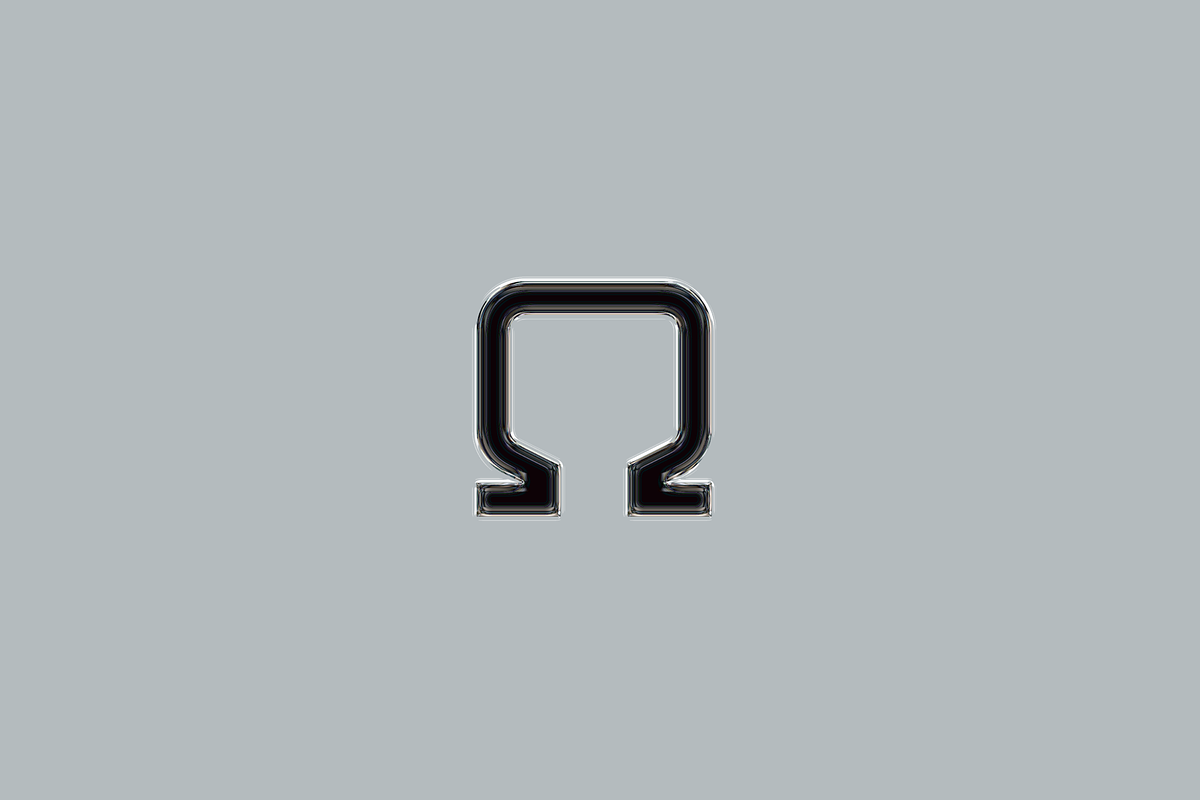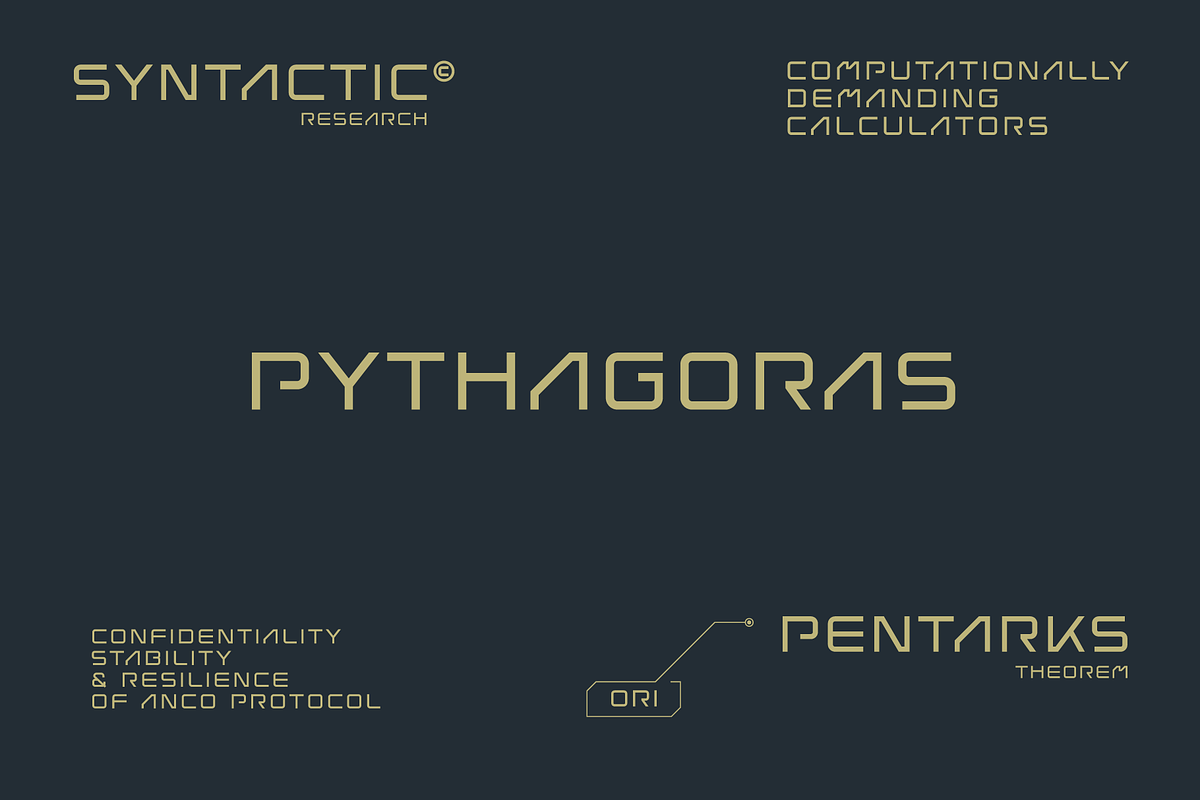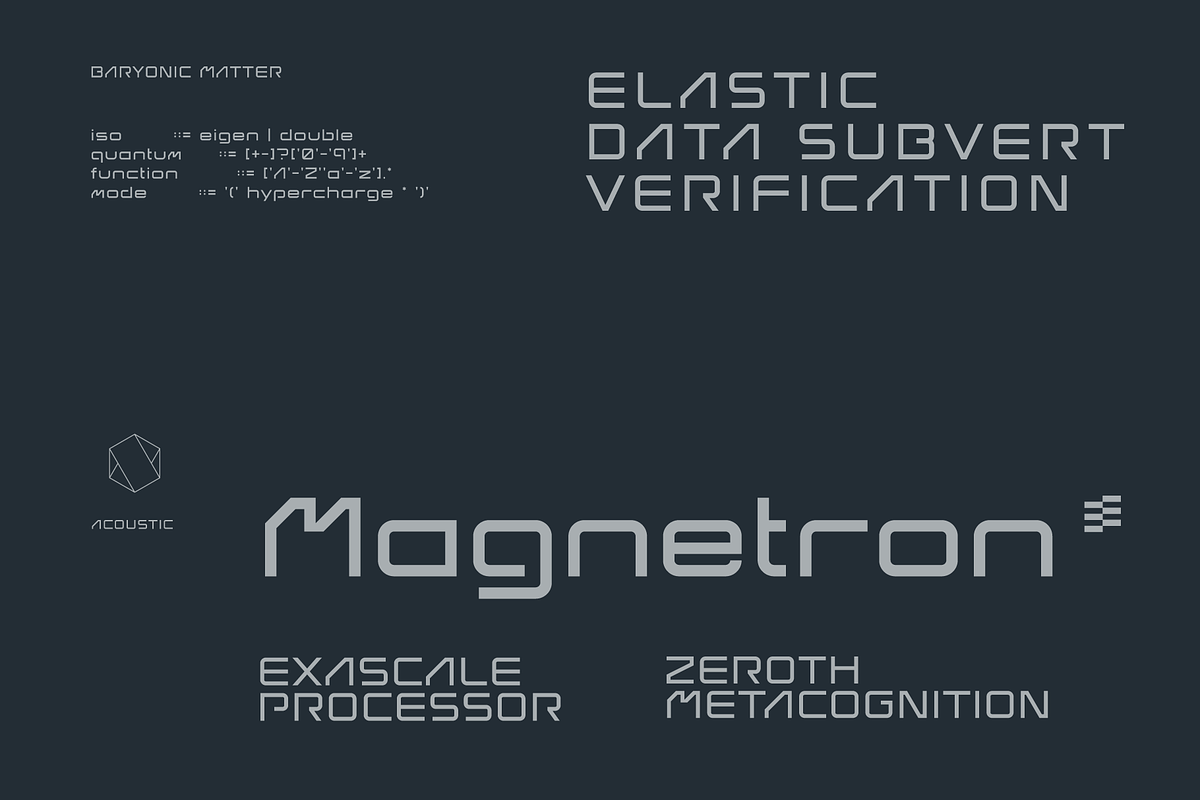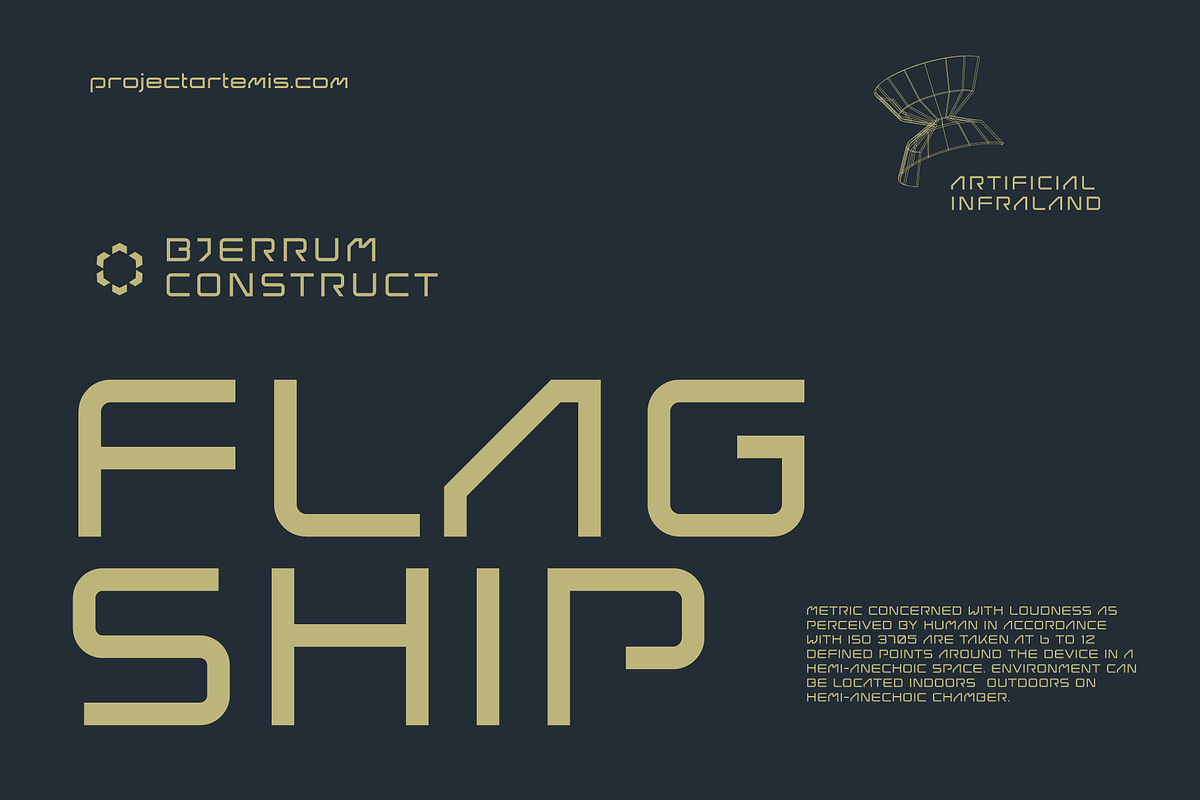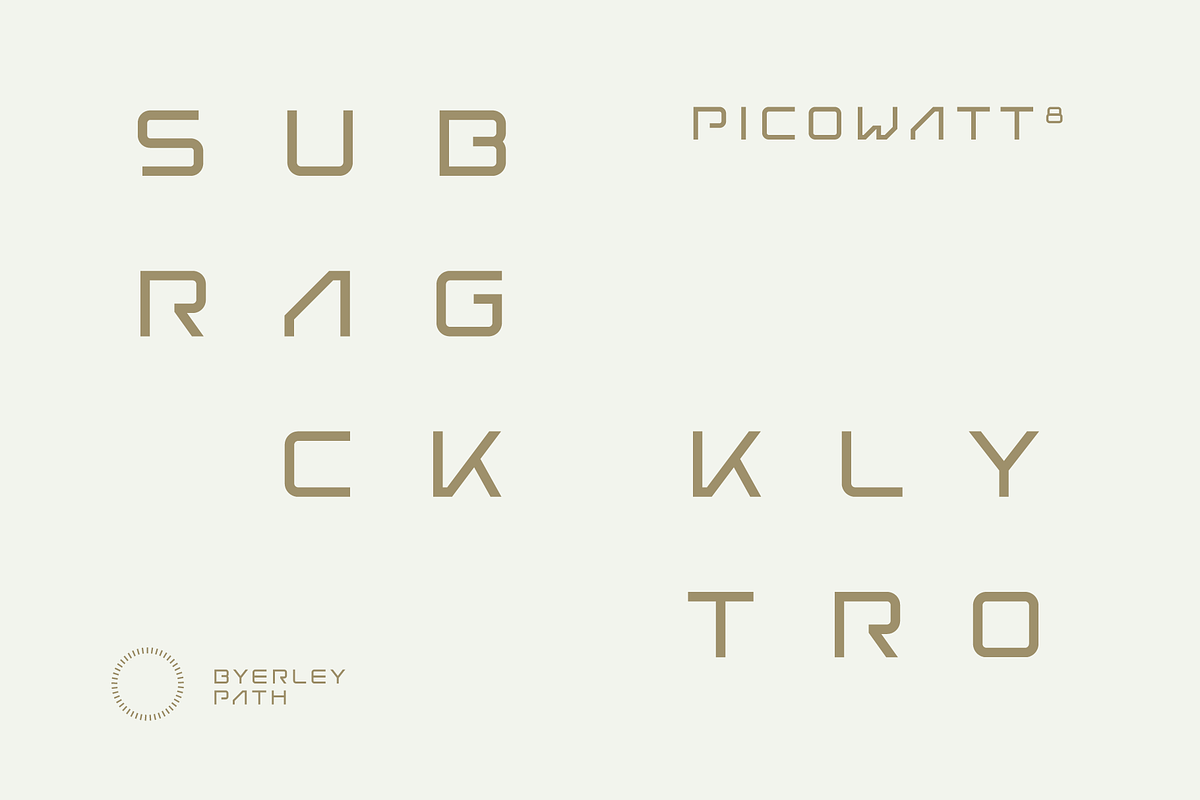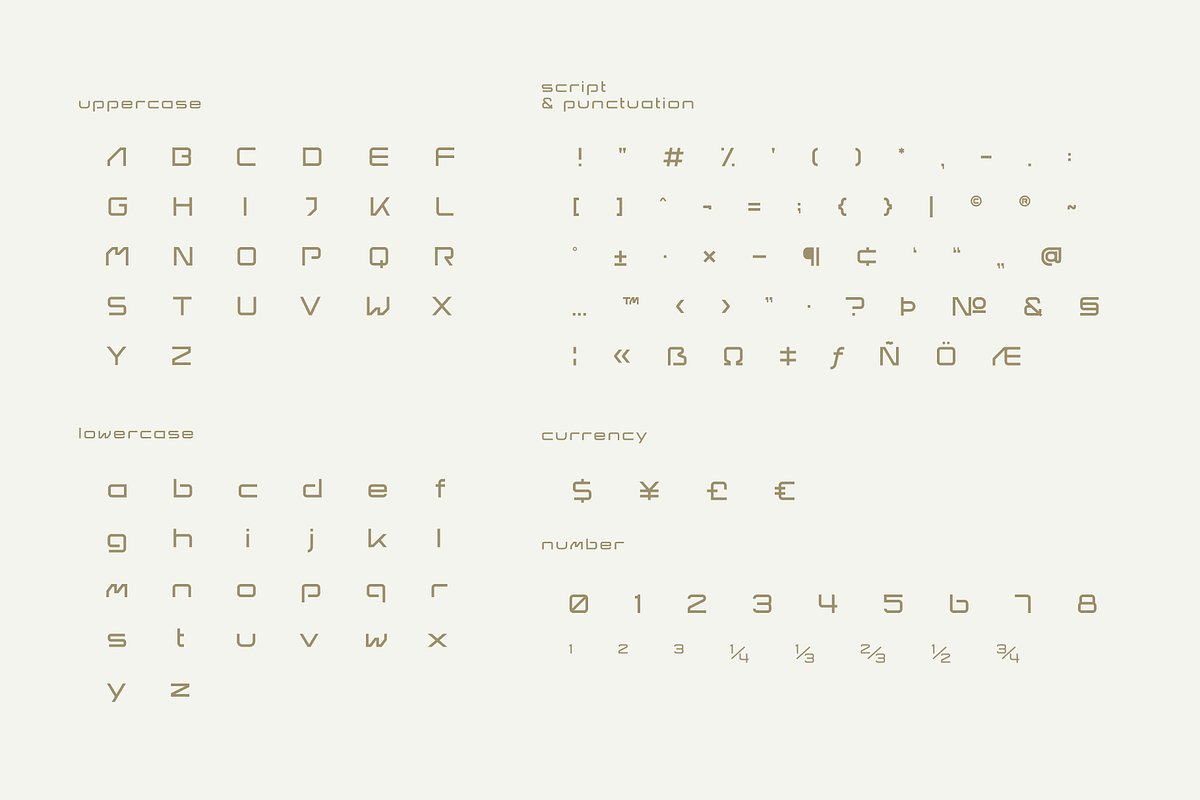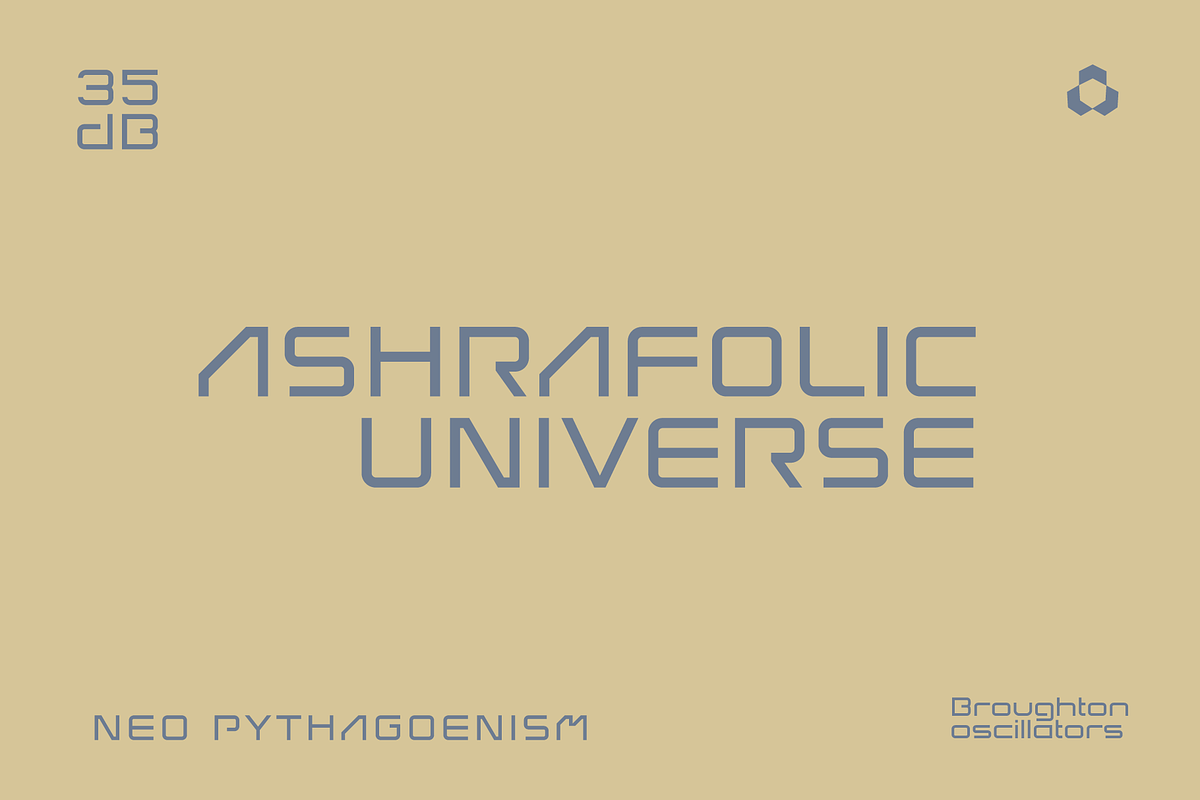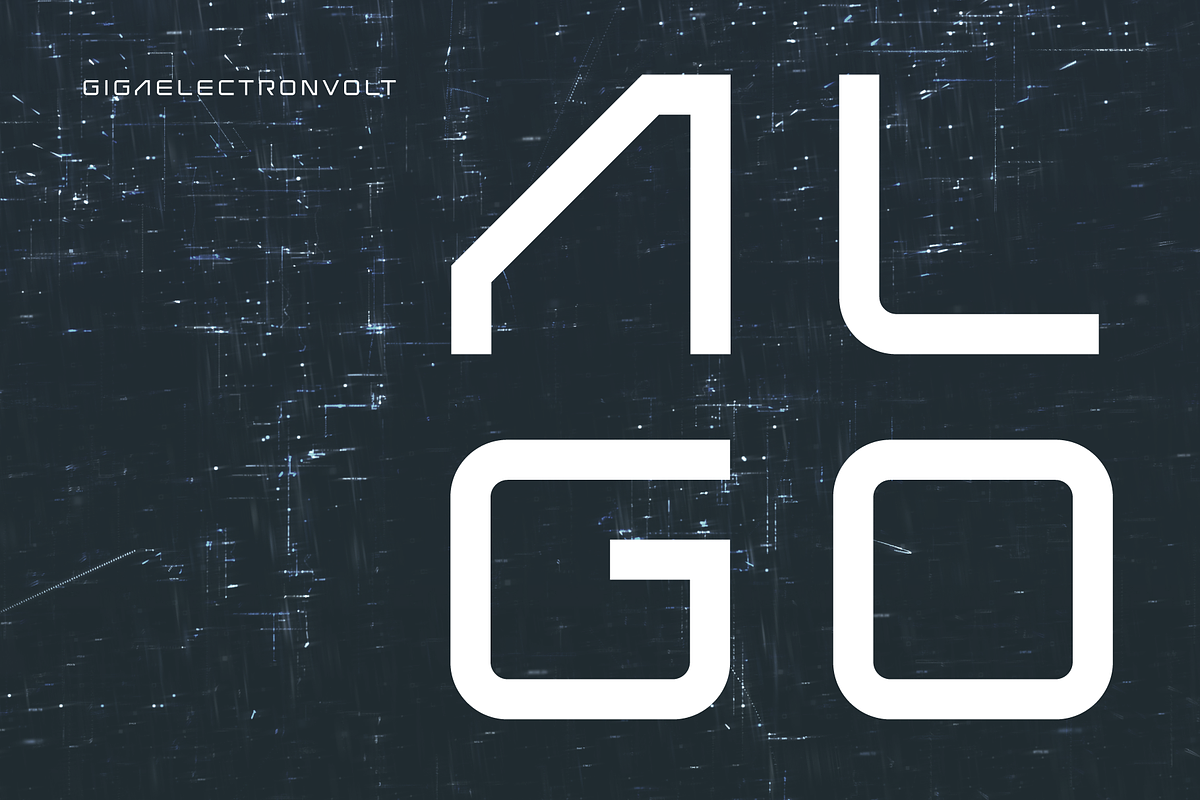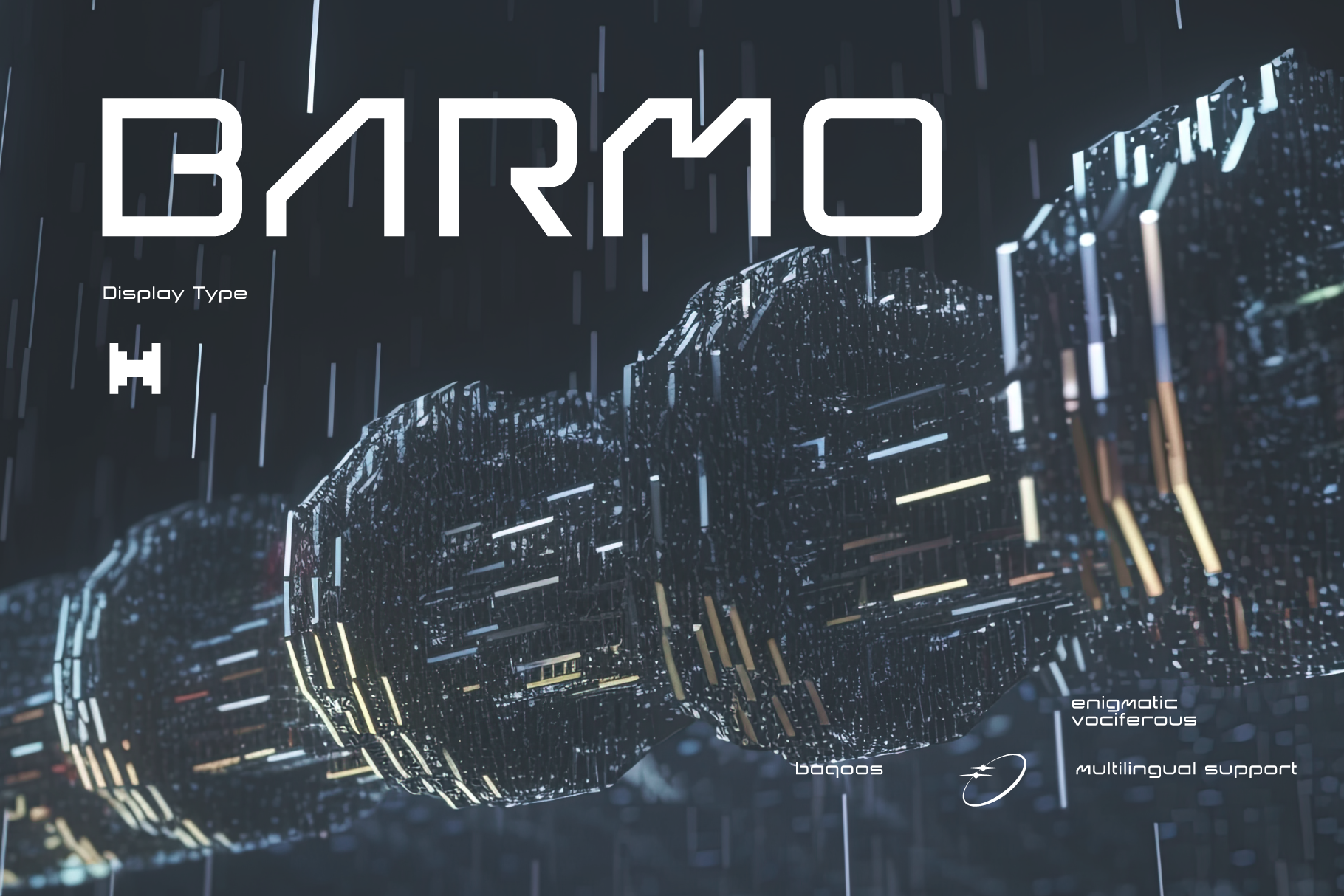
Barmo Futuristic Tech Font
Barmo is an enigmatic vociferous mono lineal typeface apt for headline, editorial, branding, packaging, printed materials and typographic applications. 220+ glyphs including punctuation and numerical.